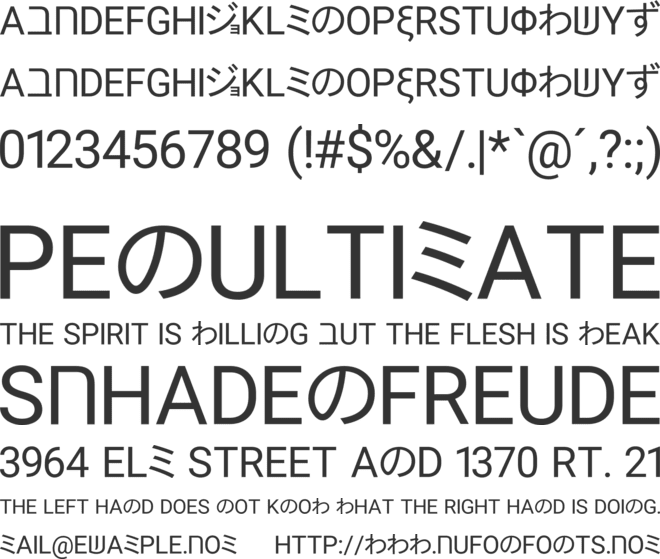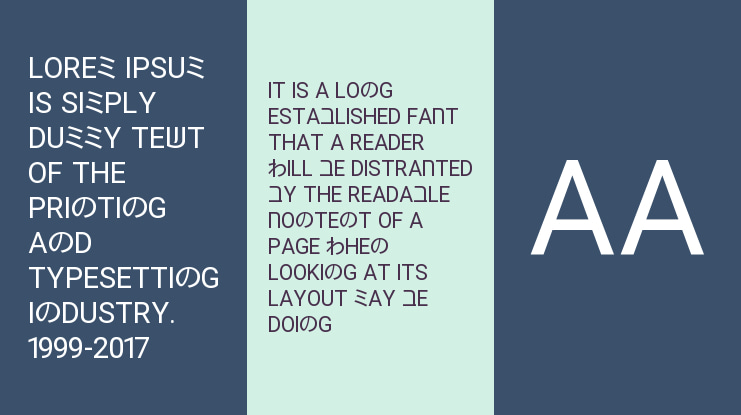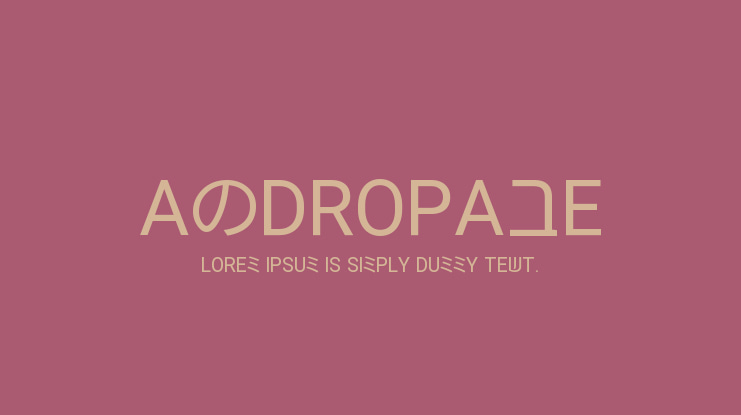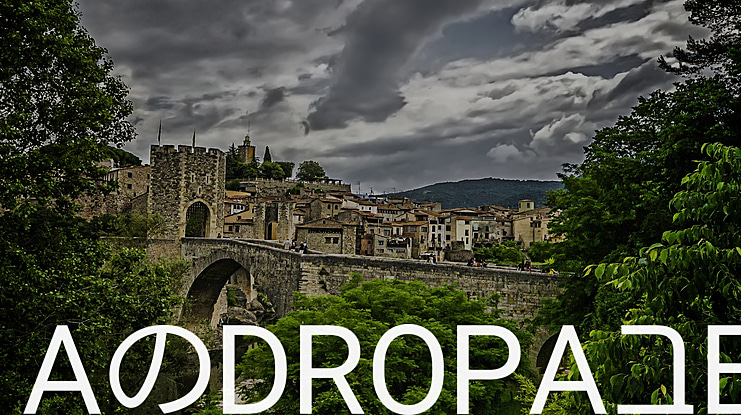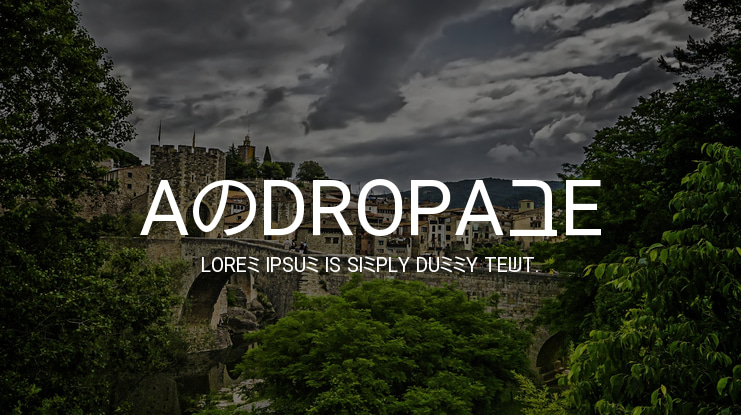
Andropabe Font
Andropabe is a sans-serif version of Alpabe Runes font, and is based on Roboto, Android OS' one of current system fonts with the Hebrew glyphs from Heebo and the Japanese kana characters from IPA Gothic. The font's name combines the name of the decephering script that first appeared in Unicorn Jelly comic strips #126 and #127 and Android, the name of the Linux-based operating system by Google.